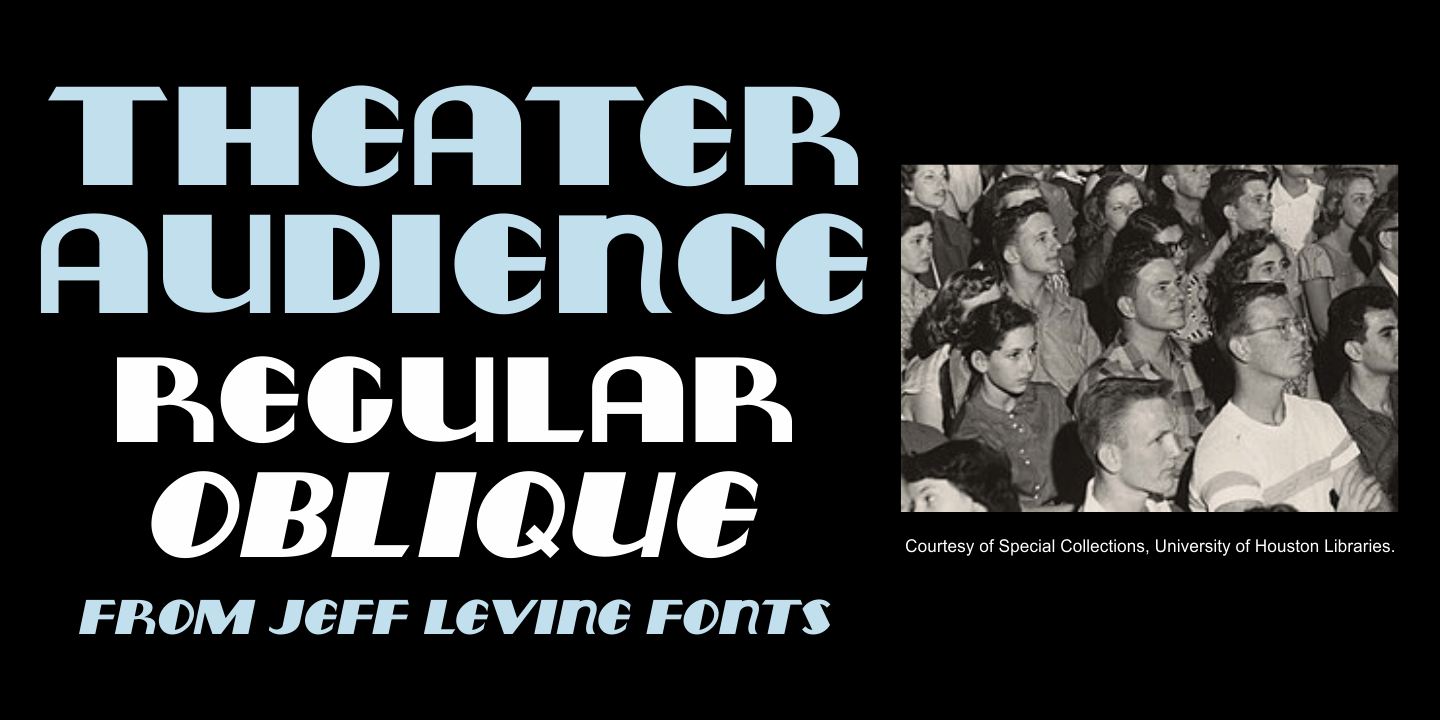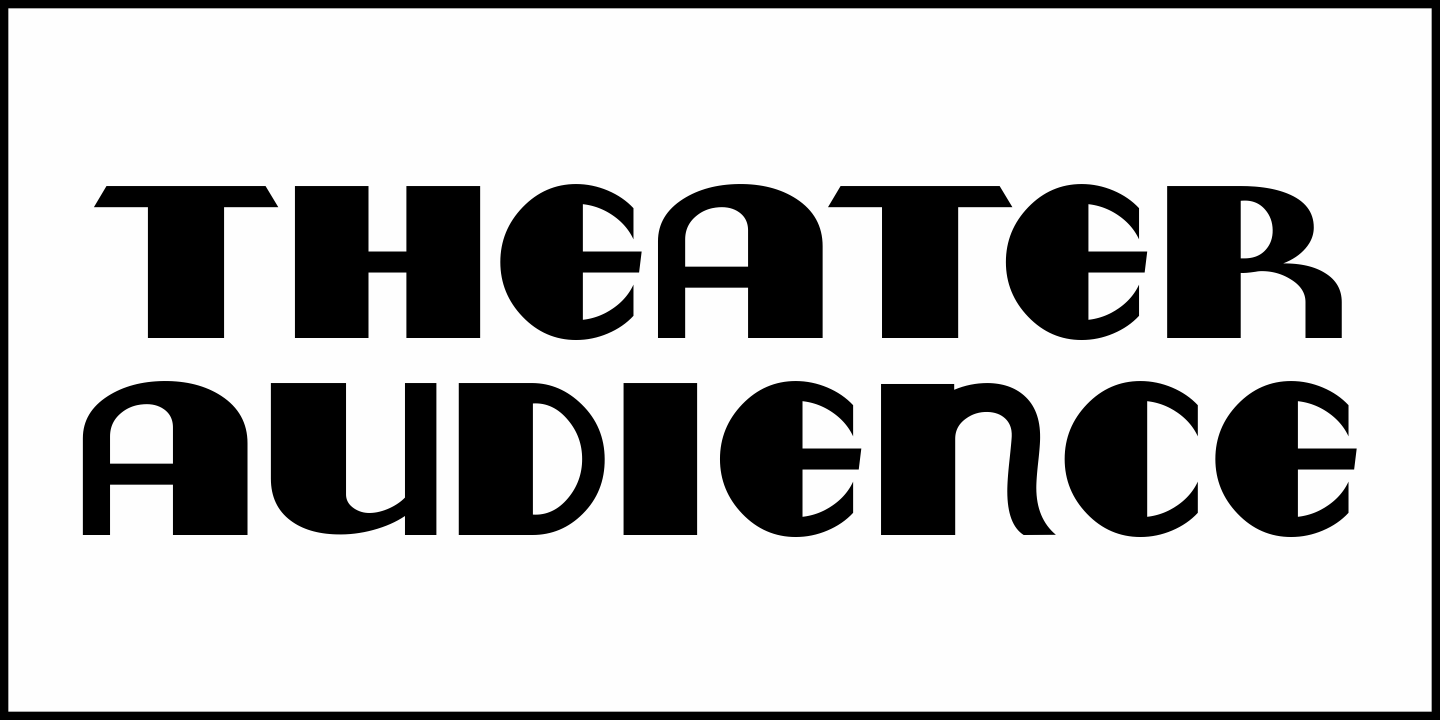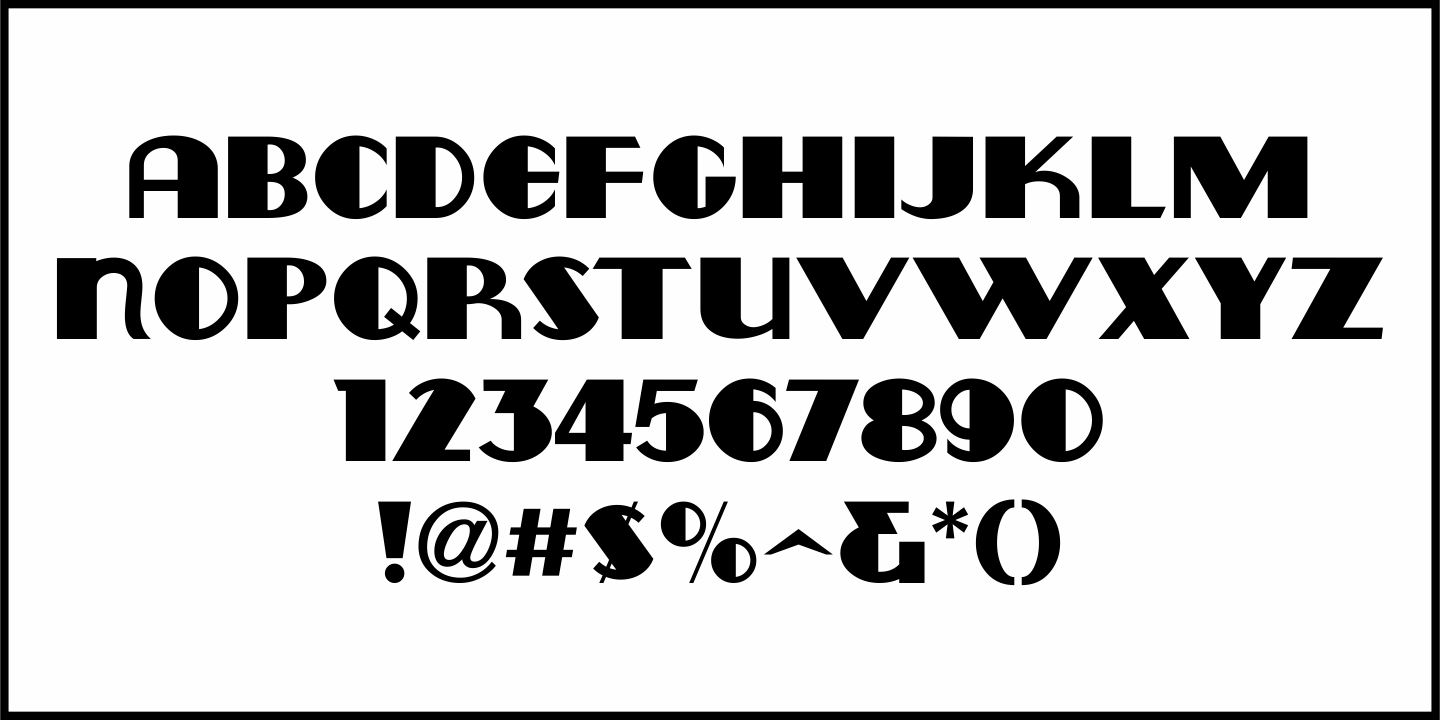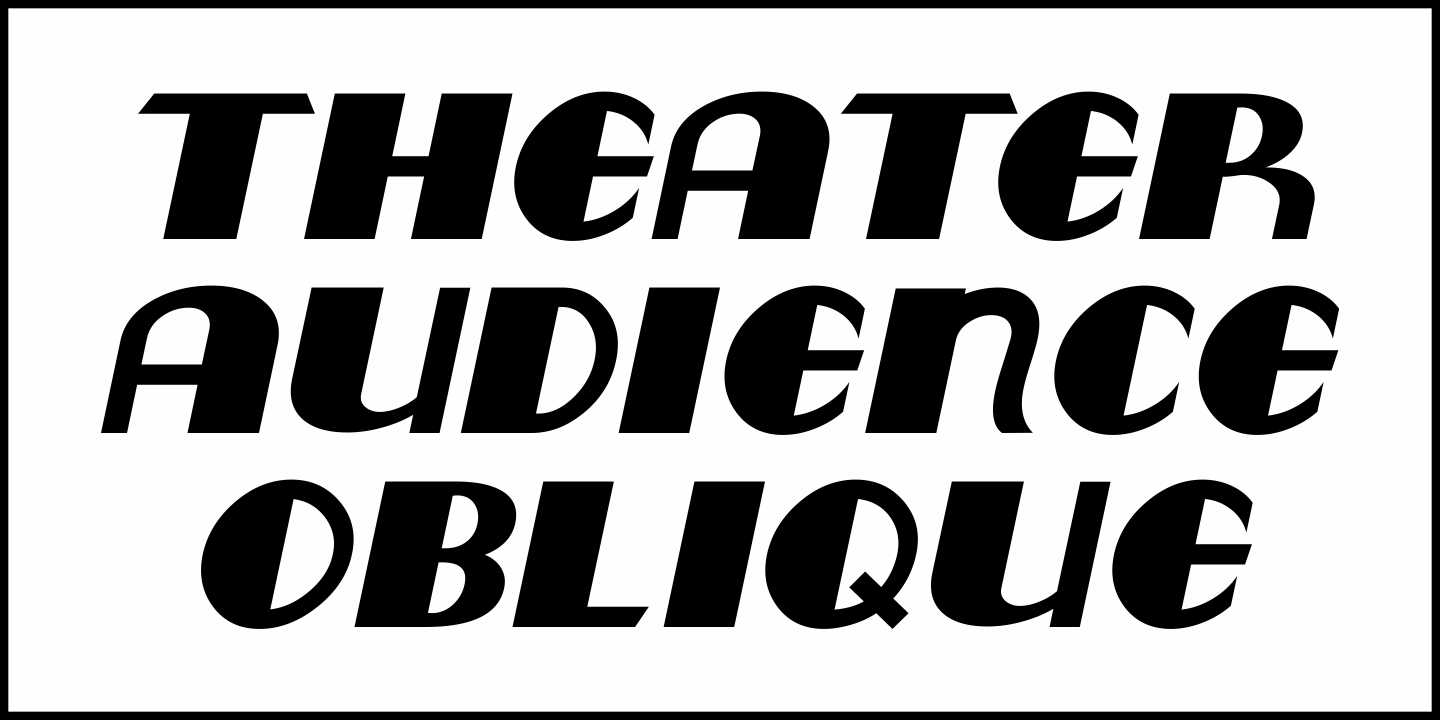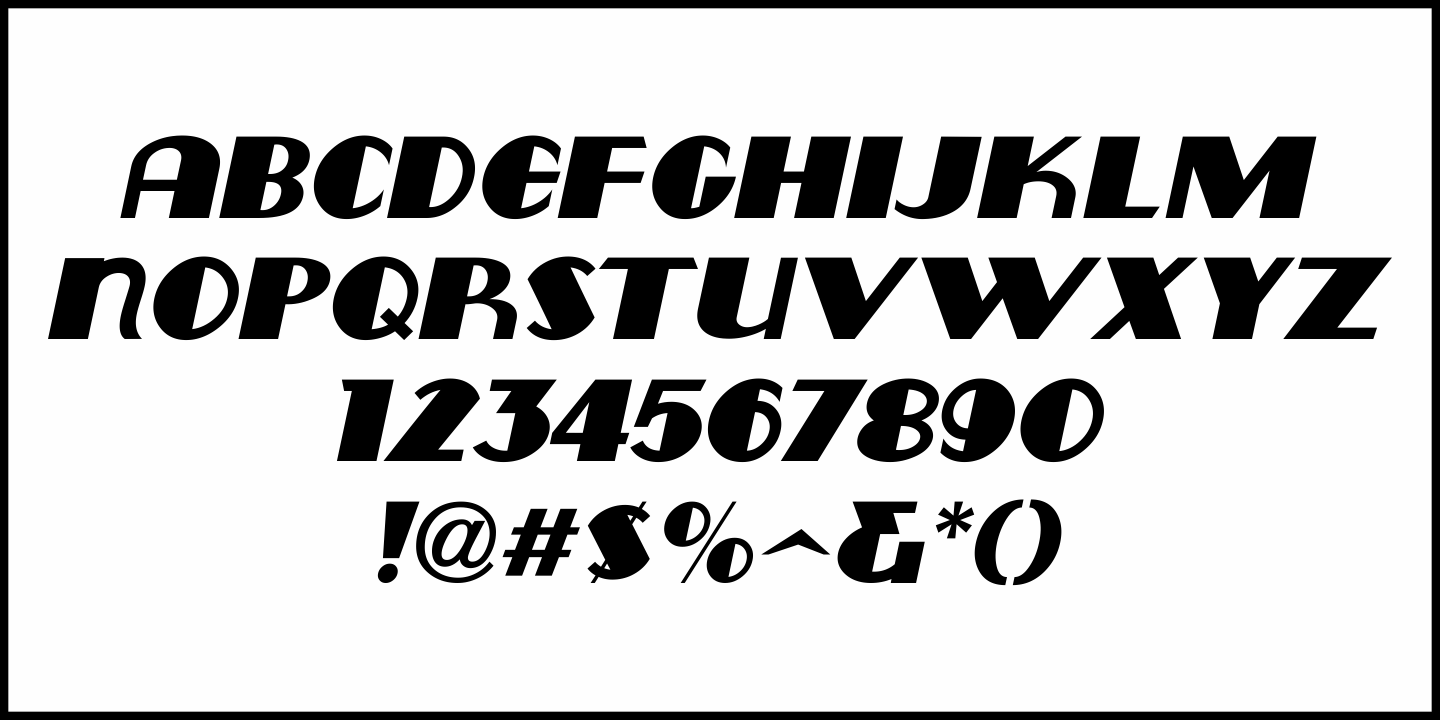
Theater Audience
In the April 23, 1932 issue of the Motion Picture Herald was an ad for a series of short subject films called "Operalogues".
The hand-lettered word copy was rendered in a bold thick and thin Art Deco alphabet similar in style to many type designs of the era that drew their inspiration from Morris Fuller Benton's 1927 typeface Broadway, but added their own interpretive character forms to set apart those designs from the original.
This is now available as Theater Audience JNL, in both regular and oblique versions.